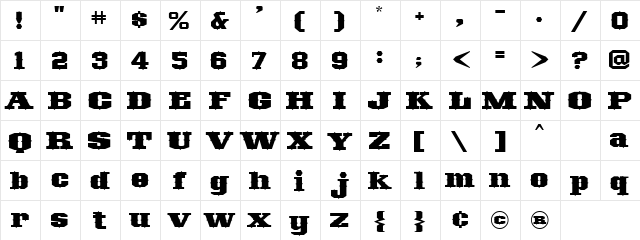
LHF Wall Dog BASE Regular
Design Context for LHF Wall Dog BASE Typeface
LHF Wall Dog BASE is a composed and adaptable typeface that performs quietly and consistently across a wide range of design contexts.